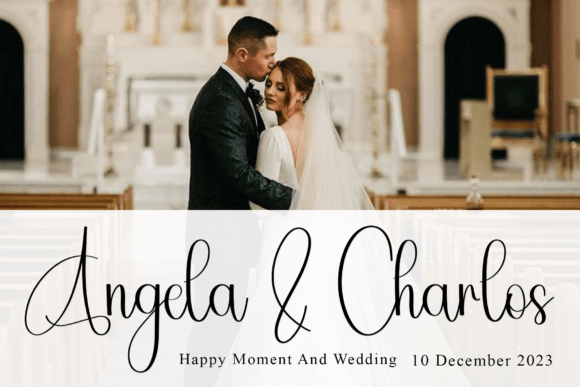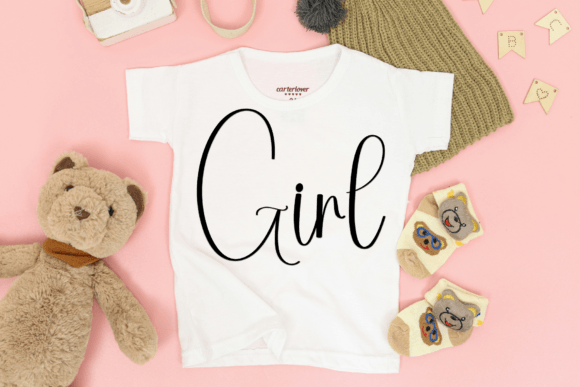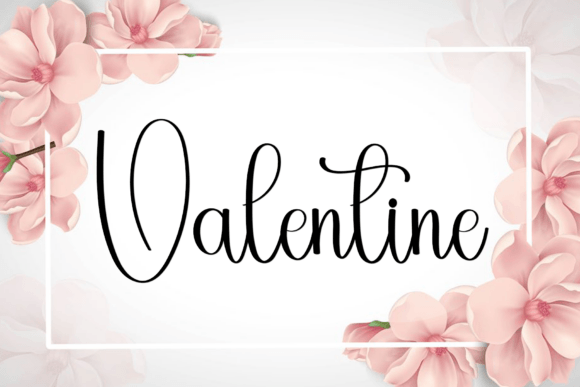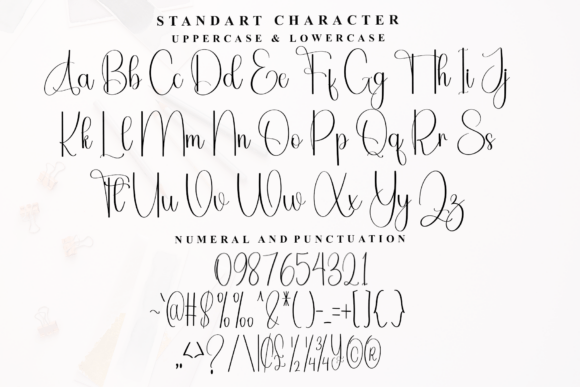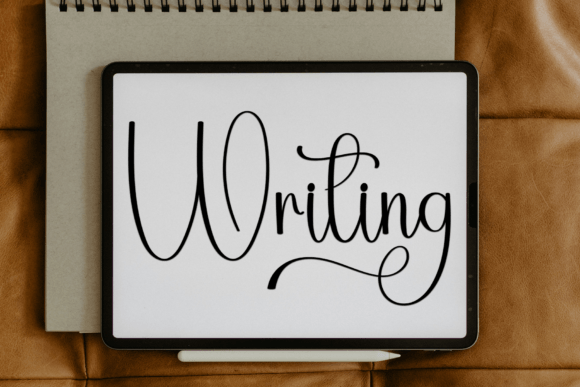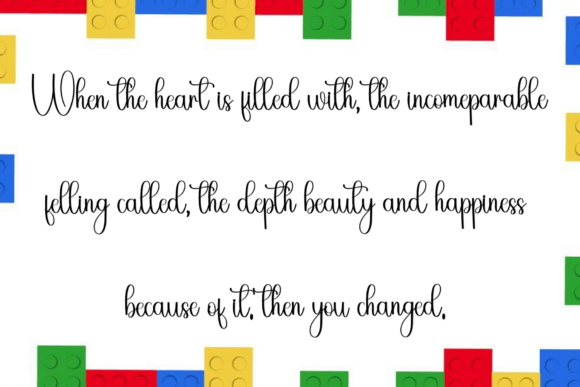
Bubly Font: Elevate Your Designs with Elegance and Sophistication
In the world of typography, fonts play a crucial role in conveying the tone and personality of a design. For designers and crafters seeking to add a touch of elegance and sophistication to their projects, the Bubly Font is an excellent choice. This stunning font is inspired by timeless classic calligraphy, offering a contemporary atmosphere and impeccable form that is sure to elevate your designs.
What is Bubly Font?
Bubly Font is a stylish, beautiful, and elegant font that boasts a balanced and varied design. Its creator aimed to craft a font that would enhance the beauty of any project, and they have succeeded in doing just that. With its PUA (Private Use Area) encoding, Bubly Font offers easy access to an array of amazing glyphs and ligatures, allowing designers to experiment with different styles and effects.
Key Features of Bubly Font
- PUA Encoded: Bubly Font’s PUA encoding makes it incredibly easy to access and use the font’s extensive range of glyphs and ligatures. This feature is particularly useful for designers who want to add unique touches to their work without the hassle of complicated font management.
- Inspired by Classic Calligraphy: The font’s design is rooted in traditional calligraphy, giving it a timeless and classic feel that works well for a variety of design applications, from luxury branding to elegant wedding invitations.
- Contemporary Atmosphere: Despite its classic inspiration, Bubly Font maintains a contemporary atmosphere that will make your designs stand out. Its clean lines and balanced proportions ensure that it remains highly legible, even at smaller sizes.
- Elegant and Versatile: Bubly Font’s elegant design makes it suitable for a wide range of projects, including but not limited to, logos, branding materials, stationery, packaging, and digital media. Its versatility is one of its most appealing features, allowing designers to use it across different mediums.
Why Choose Bubly Font?
For designers and crafters looking for a font that combines elegance with versatility, Bubly Font is an excellent choice. Here are a few reasons why:
- Enhances Project Beauty: As described, Bubly Font was designed to enhance the beauty of your projects. Its elegant and stylish appearance can instantly elevate the quality and aesthetic appeal of your designs.
- Easy to Use: Thanks to its PUA encoding, using Bubly Font is straightforward. You can easily access and apply the various glyphs and ligatures to create unique and captivating text effects.
- Timeless Appeal: The classic inspiration behind Bubly Font ensures that it won’t go out of style anytime soon. Investing in a font with a timeless appeal means your designs will remain relevant and beautiful for years to come.
Bubly Font is a stylish, elegant, and versatile font that can add a touch of sophistication to any design project. Its inspiration from classic calligraphy, combined with its contemporary atmosphere and impeccable form, makes it a valuable asset for designers and crafters. With its PUA encoding for easy access to glyphs and ligatures, Bubly Font is not only beautiful but also practical. Whether you’re working on a luxury brand project, creating elegant stationery, or crafting unique digital content, Bubly Font is sure to enhance the beauty and appeal of your work.